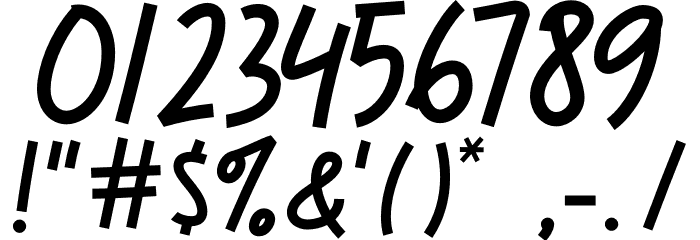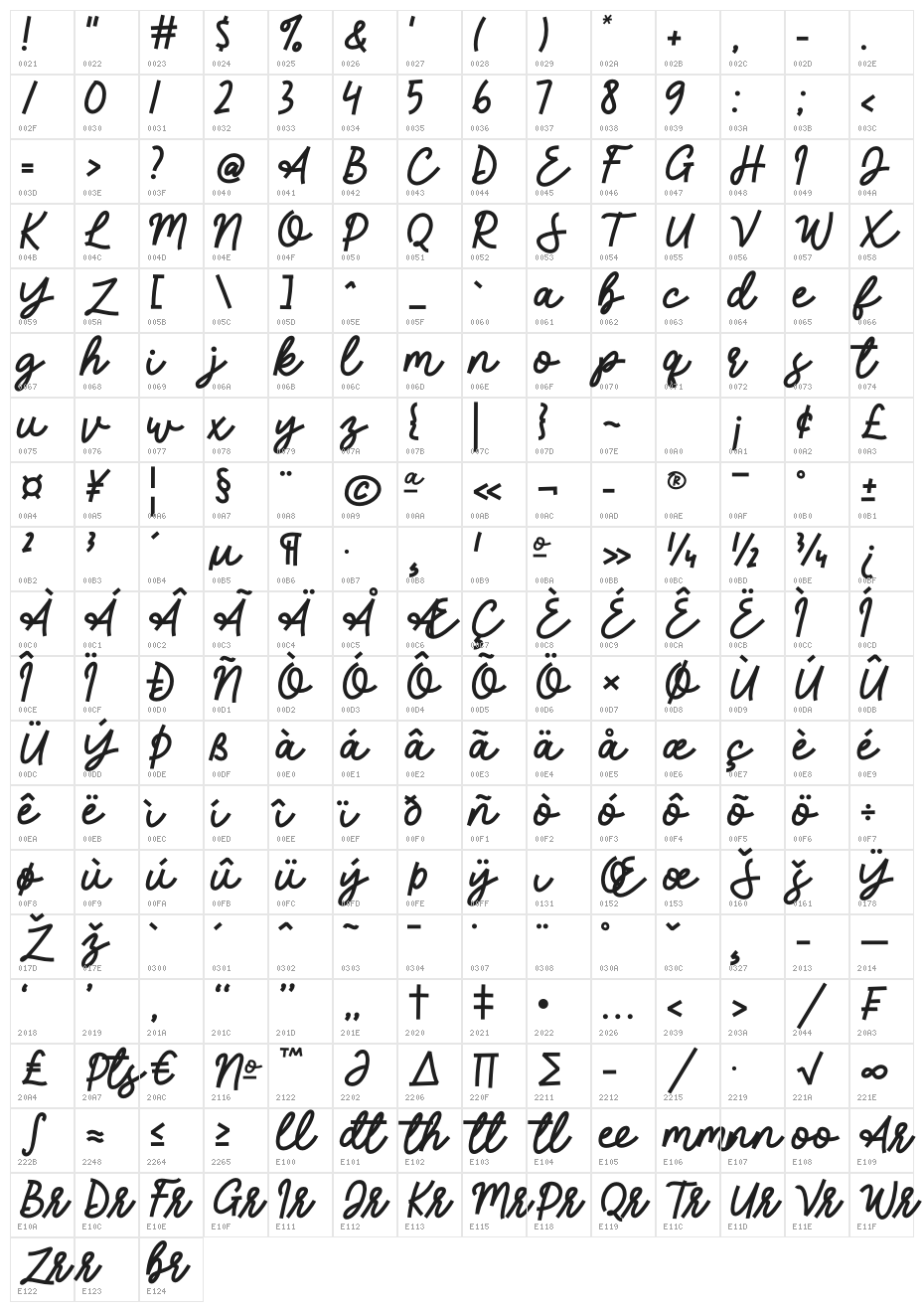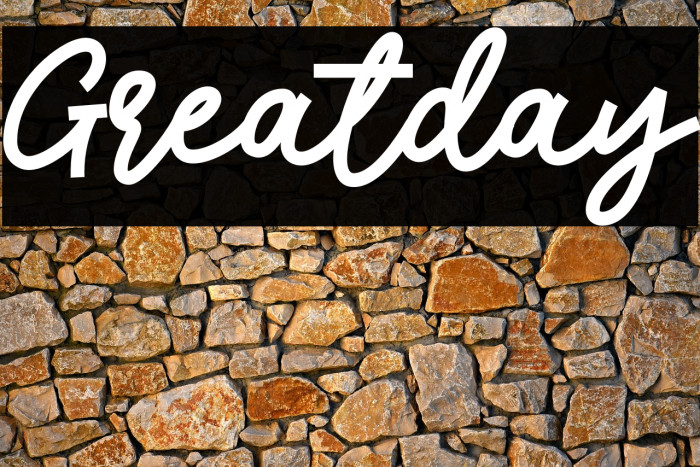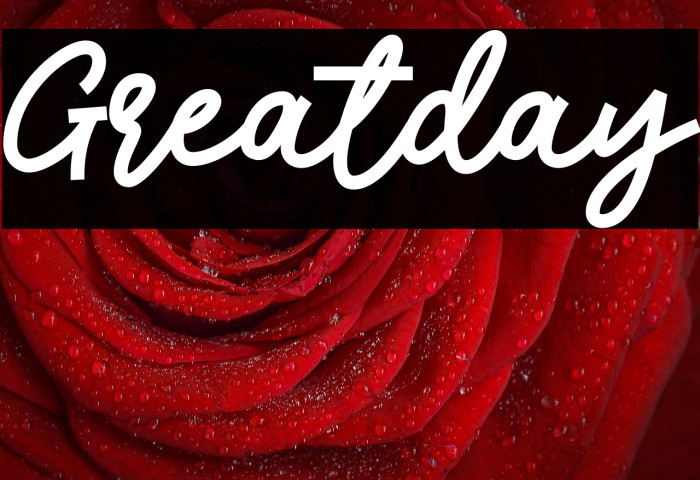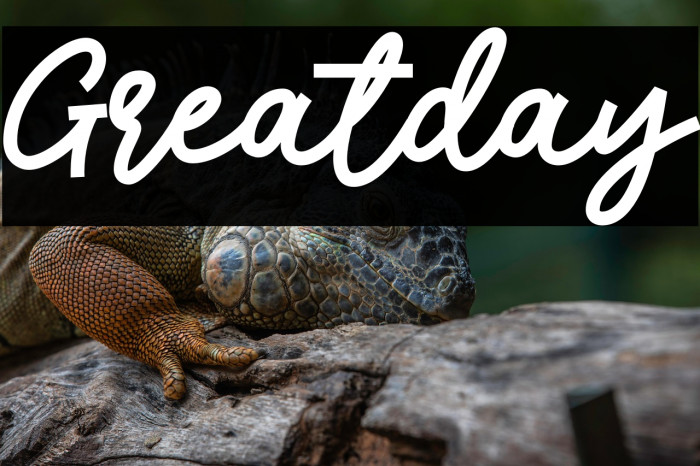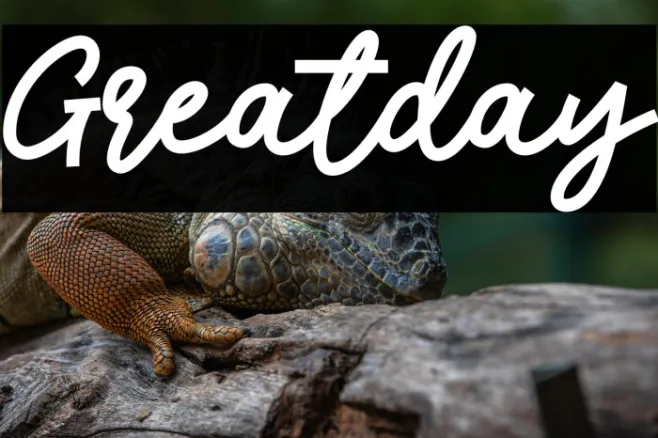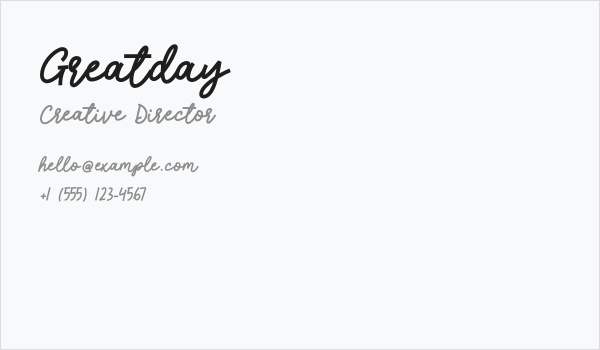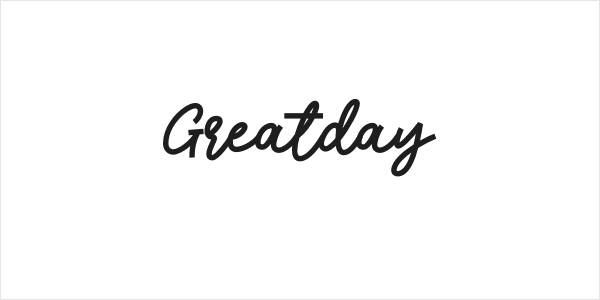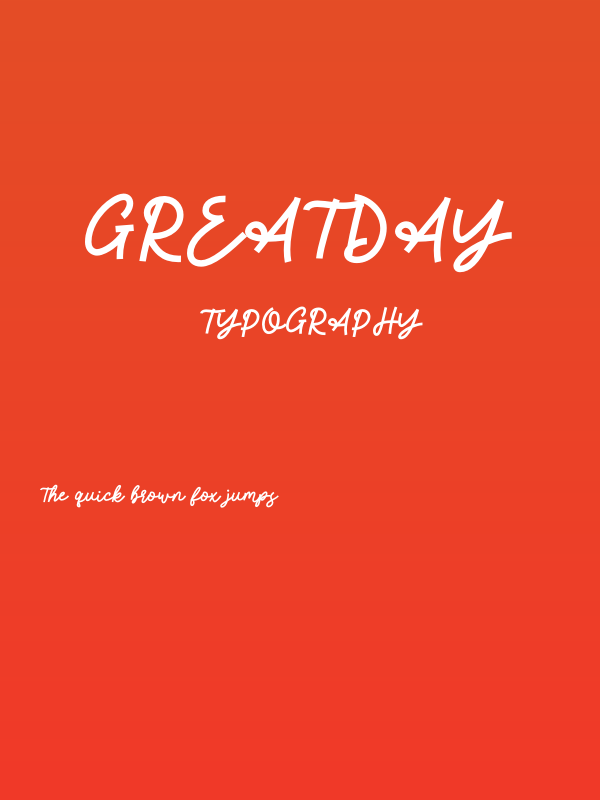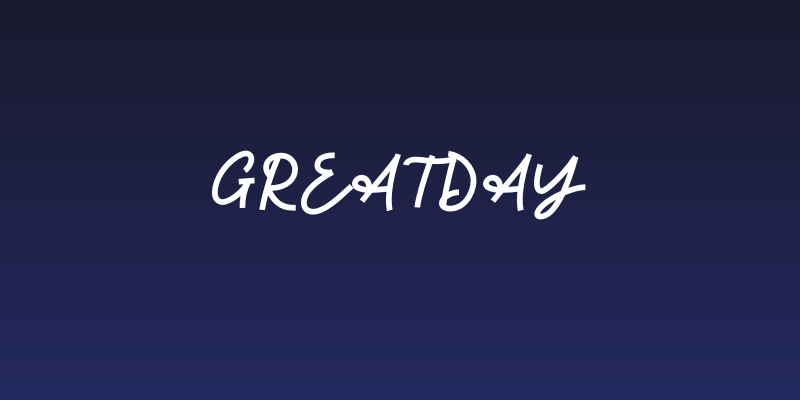
Greatday Font
Greatday Description
This font features a lively and dynamic script style, characterized by its fluid, cursive strokes that mimic natural handwriting. The uppercase letters are bold and slightly slanted, giving a sense of movement and energy. The lowercase letters maintain a consistent flow, enhancing readability while preserving the handwritten aesthetic. Numbers and special characters are crafted with the same attention to detail, ensuring a cohesive look across all glyphs. The overall appearance is both playful and elegant, making it suitable for a variety of creative applications.